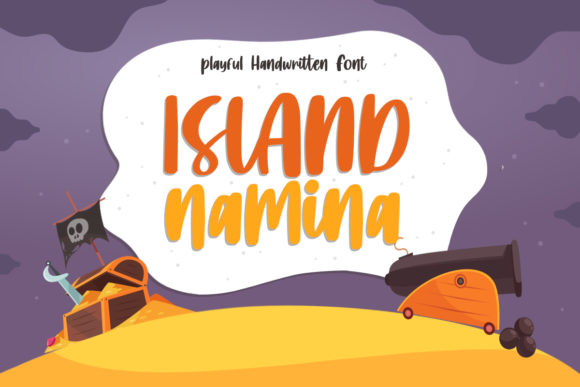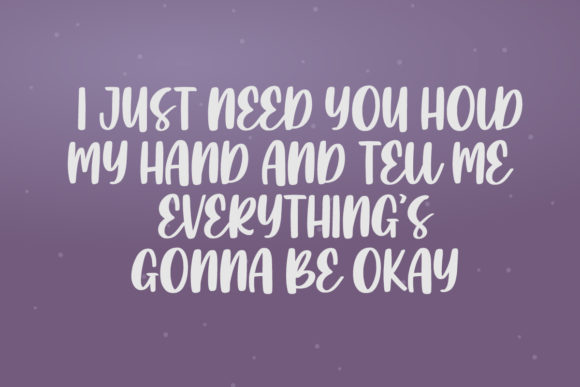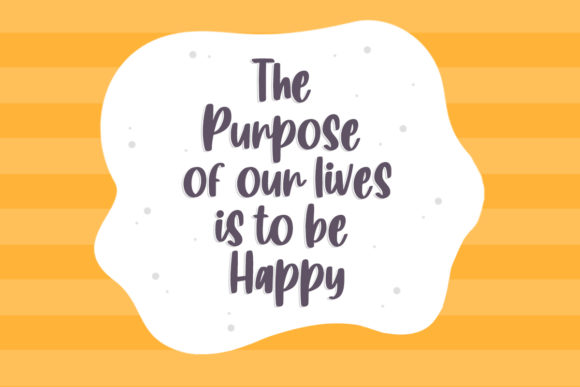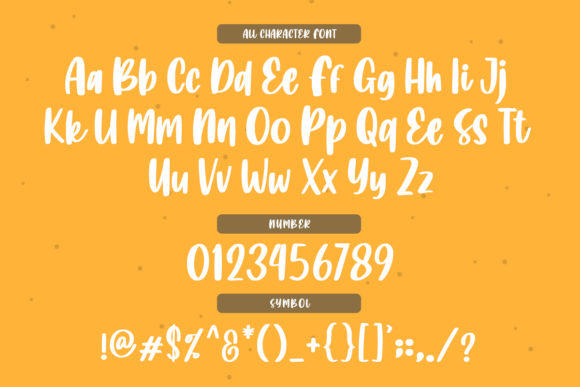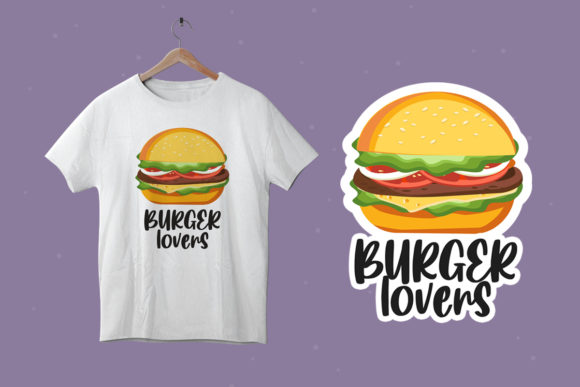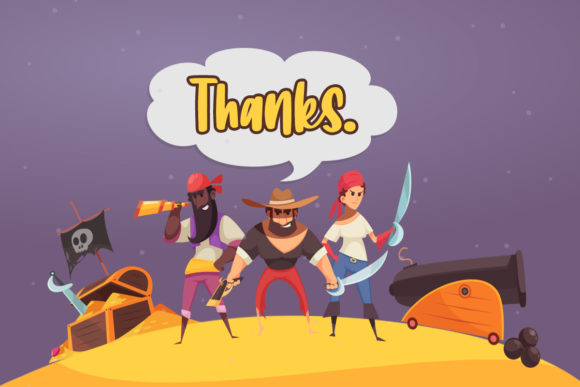
Island Namina Font
About Island Namina Font
Island Namina is a fun and cute display font. It will elevate a wide range of design projects to the highest level, be it branding, headings, wedding designs, invitations, signatures, logos, labels, and much more!